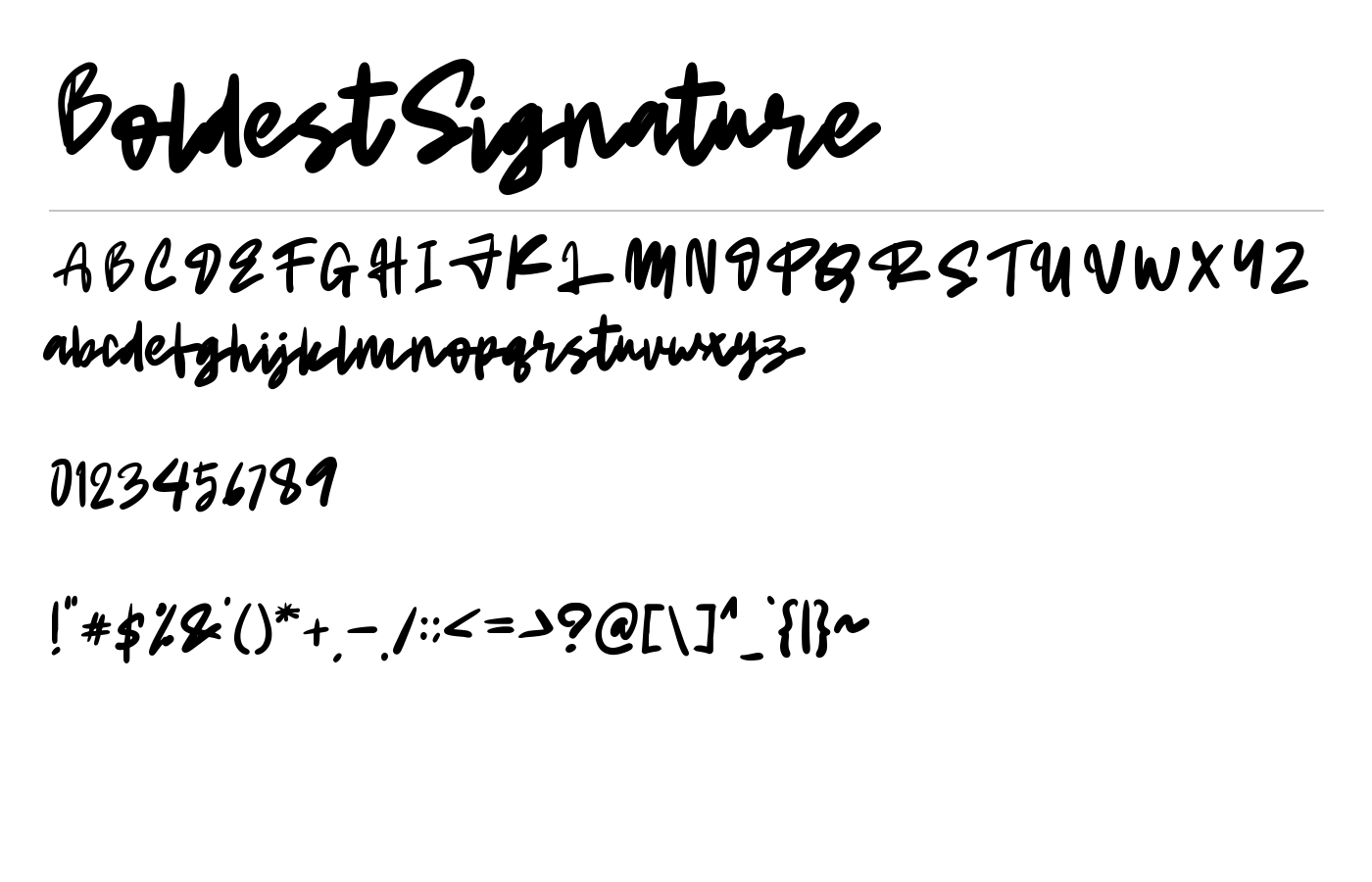
BoldestSignature is a bold, handwritten script font that feels lively and personal with its thick, irregular strokes and energetic style. It works wonderfully for branding, logos, and creative headlines that need a dynamic, authentic touch with a modern, casual flair. This font is perfect where a bold, spontaneous signature look adds character and warmth.
BoldestSignature Font
About BoldestSignature Font